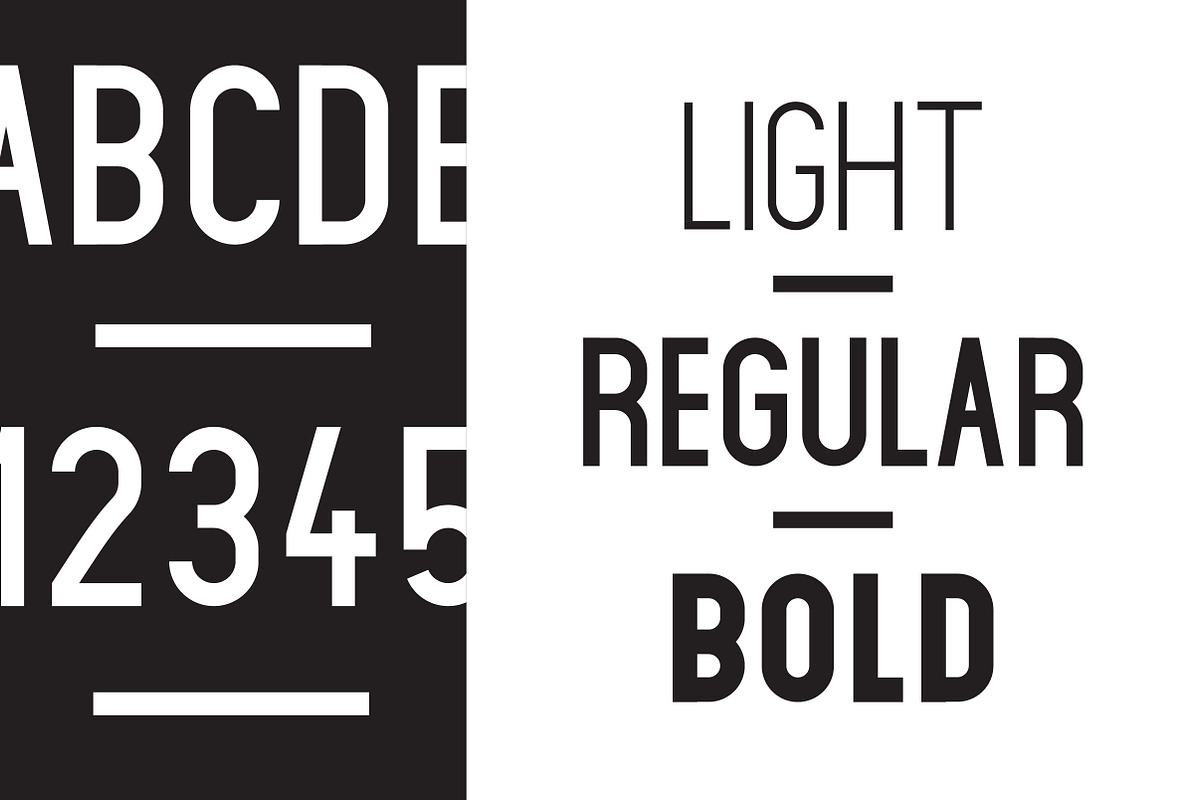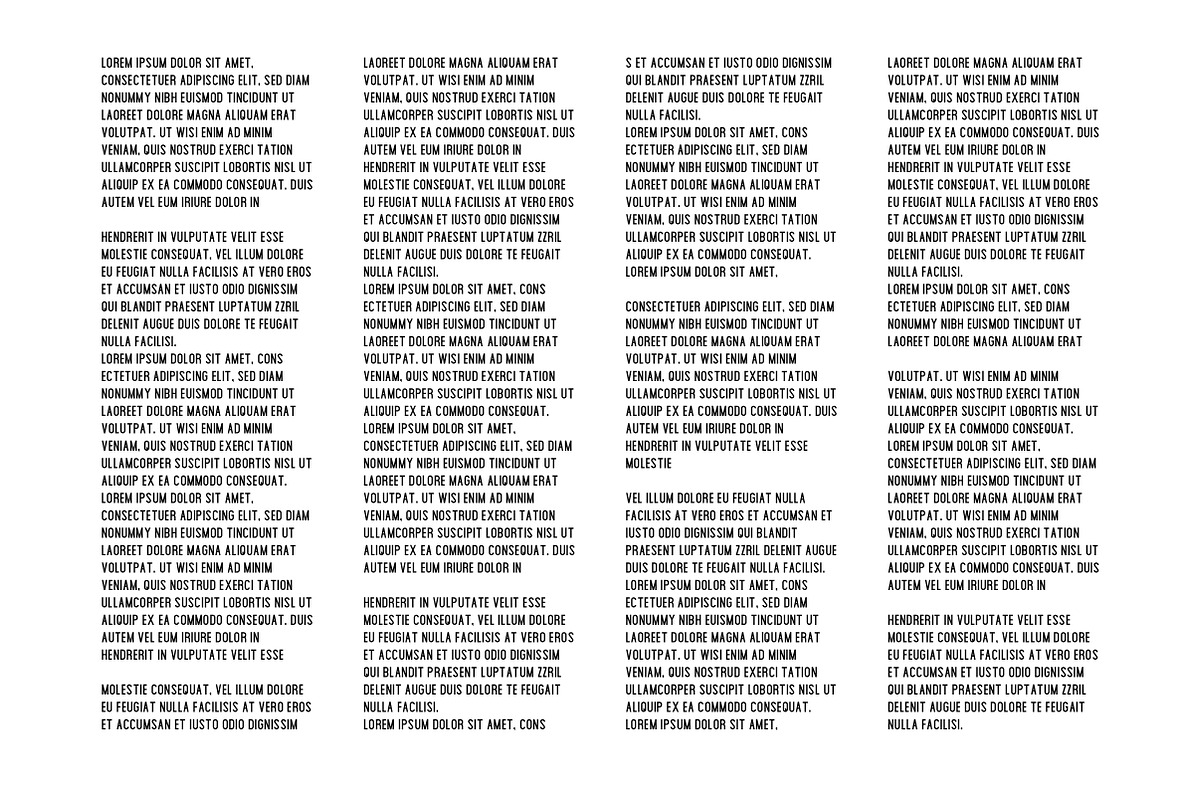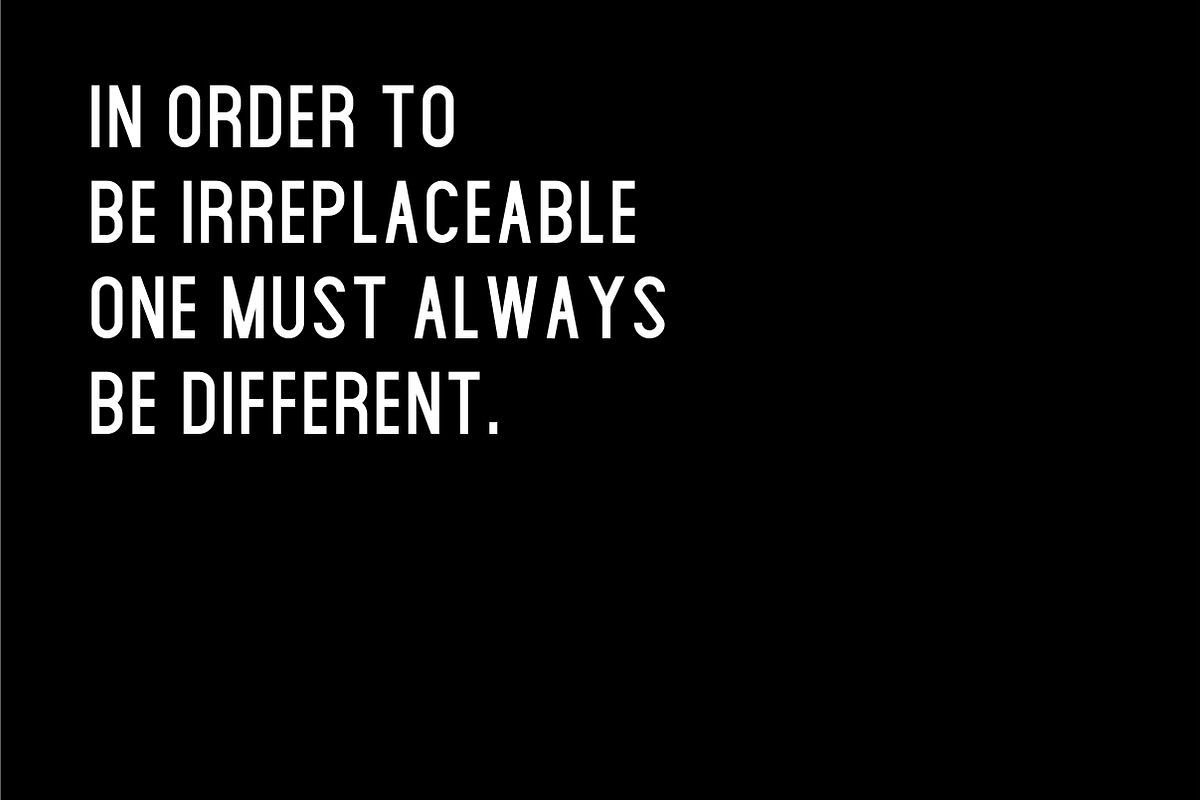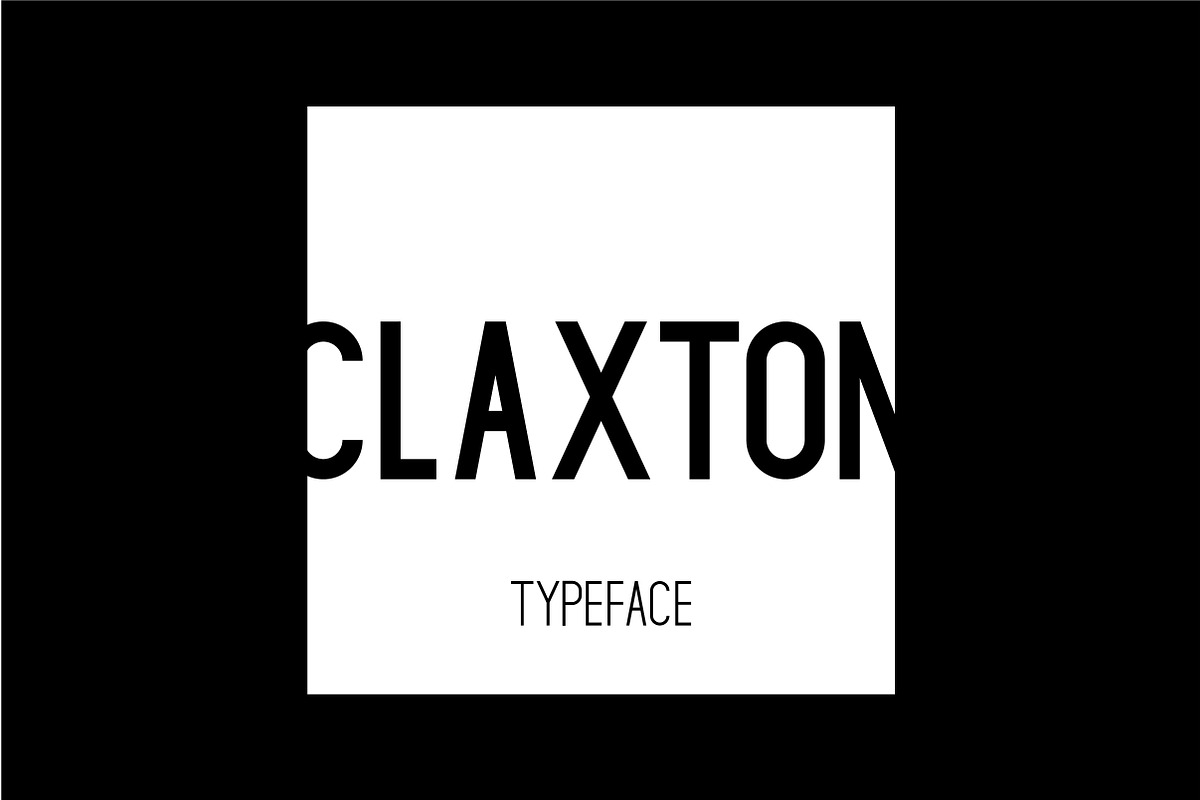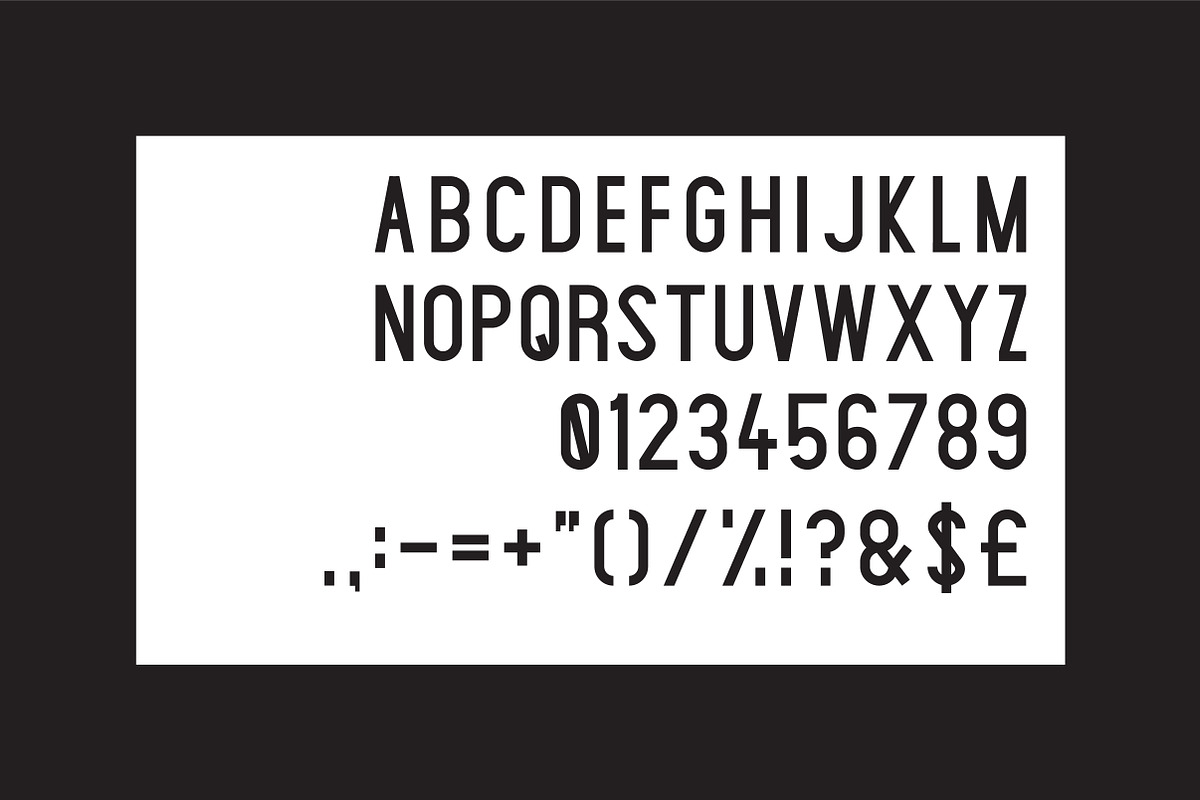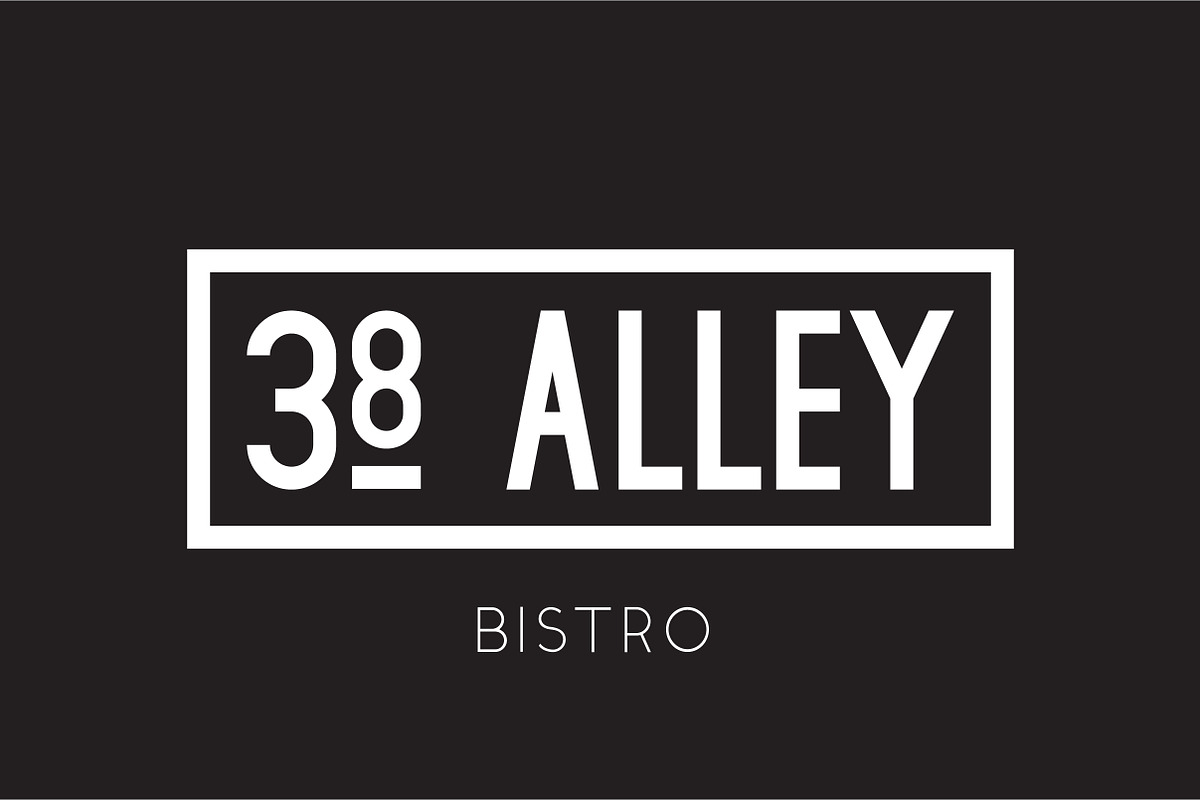
Claxton Typeface
Claxton is a stylish and sophisticated typeface great for simplistic up-market branding. Comes in 3 weights. Enjoy!
- Claxton Light
- Claxton Regular
- Claxton Bold